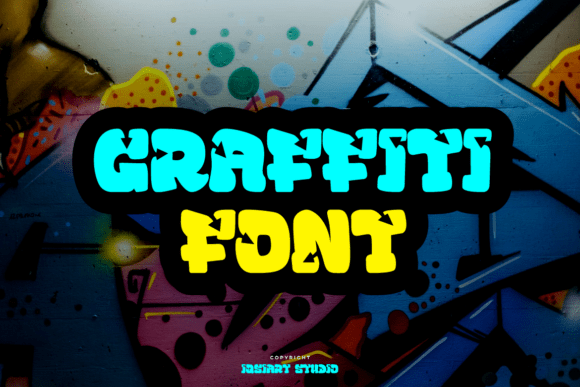
Owick Erfow Font: Unleashing Urban Energy and Raw Creativity
In the world of typography, few fonts manage to capture the essence of urban energy and raw creativity as effectively as Owick Erfow. This graffiti and paint font has taken the design community by storm, offering a unique blend of thick, expressive strokes and a vibrant street-art vibe. Whether you’re working on posters, hip-hop album covers, streetwear branding, or youth-focused projects, Owick Erfow is the perfect choice to channel the pulse of the city into your designs.
The Urban Inspiration Behind Owick Erfow
Owick Erfow is more than just a font – it’s an experience. Inspired by the raw energy of urban landscapes, this font embodies the rebellious spirit of street art. The creator of Owick Erfow aimed to capture the dynamic and often unpredictable nature of city life, where creativity knows no bounds. The result is a font that exudes confidence, attitude, and a sense of edginess.
Key Features of Owick Erfow Font
- Expressive Strokes: Owick Erfow’s thick, expressive strokes give it a hand-painted feel that’s perfect for creating eye-catching designs.
- Urban Aesthetic: The font’s urban aesthetic makes it ideal for projects that require a bold, street-art vibe.
- Versatility: Owick Erfow can be used for a wide range of projects, from posters and album covers to branding and advertising.
- Readability: Despite its bold nature, Owick Erfow remains highly readable, making it suitable for both headlines and body text.
Perfect for Bold and Edgy Designs
Owick Erfow’s unique characteristics make it the perfect choice for designers looking to create bold and edgy designs. Its urban energy and raw creativity are infectious, making it an excellent addition to any project that requires a youthful and vibrant feel. Whether you’re designing a poster for a music festival, a logo for a streetwear brand, or a cover for a hip-hop album, Owick Erfow is sure to make a statement.
Use Cases for Owick Erfow Font
- Posters: Use Owick Erfow to create eye-catching posters for concerts, festivals, or events that require a bold and urban vibe.
- Hip-Hop Album Covers: Owick Erfow’s street-art aesthetic makes it a natural fit for hip-hop album covers that require a raw and edgy feel.
- Streetwear Branding: Add a touch of urban energy to your streetwear brand with Owick Erfow’s bold and expressive typography.
- Youth-Focused Projects: Owick Erfow’s youthful and vibrant vibe makes it perfect for projects targeting a young audience, such as advertising campaigns or editorial content.
Tips for Using Owick Erfow Effectively
- Experiment with Colors: Owick Erfow’s urban aesthetic lends itself well to bold and bright colors. Experiment with different color schemes to find the perfect combination for your design.
- Mix and Match: Combine Owick Erfow with other fonts to create a unique and visually appealing typography.
- Play with Texture: Add texture to your design by incorporating Owick Erfow with different textures, such as graffiti or street art-inspired backgrounds.
- Keep it Bold: Don’t be afraid to make a statement with Owick Erfow. Its bold nature makes it perfect for creating eye-catching designs that demand attention.
Owick Erfow is more than just a font – it’s a design experience. With its urban energy, raw creativity, and bold typography, it’s the perfect choice for designers looking to channel the pulse of the city into their designs. Whether you’re working on posters, hip-hop album covers, streetwear branding, or youth-focused projects, Owick Erfow is sure to make a statement. So why settle for ordinary typography when you can unleash the urban energy of Owick Erfow?